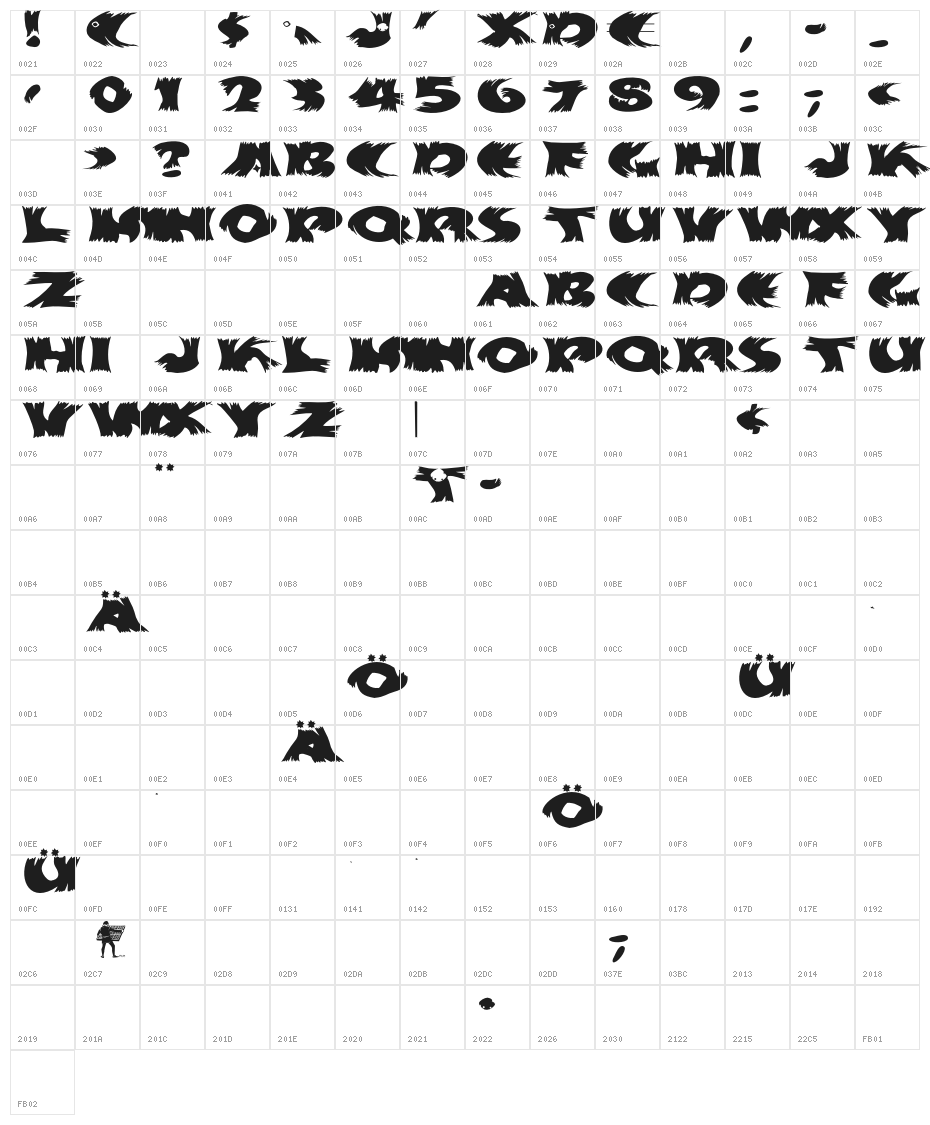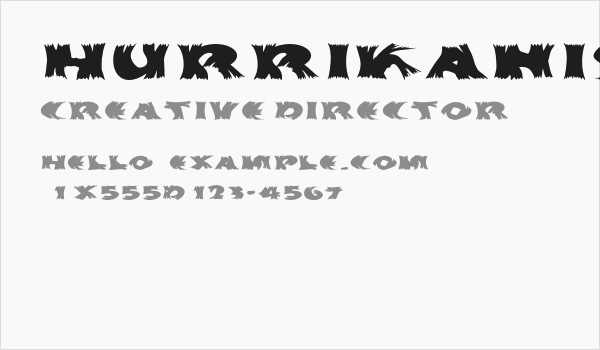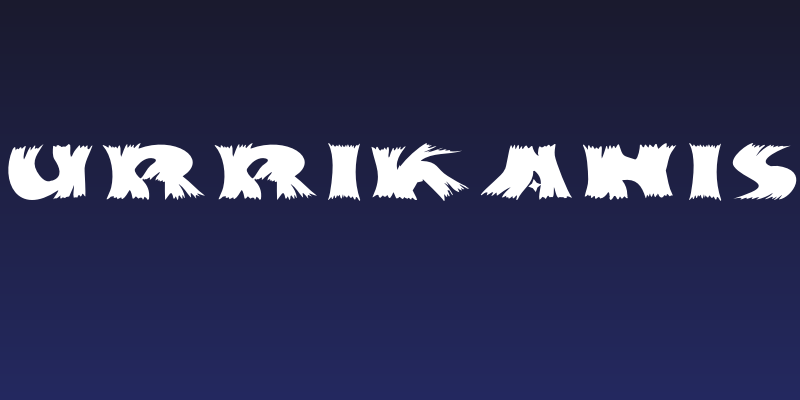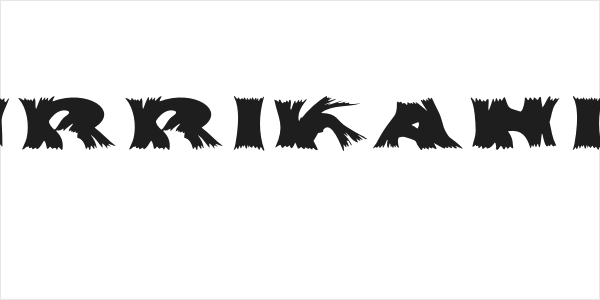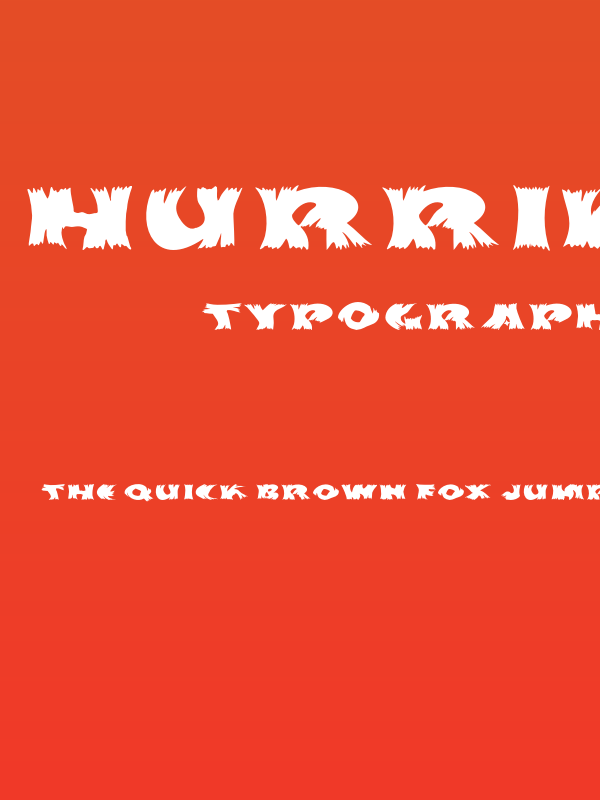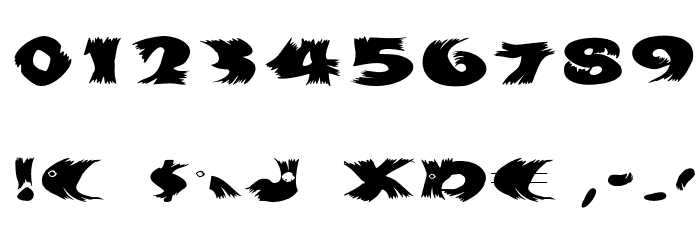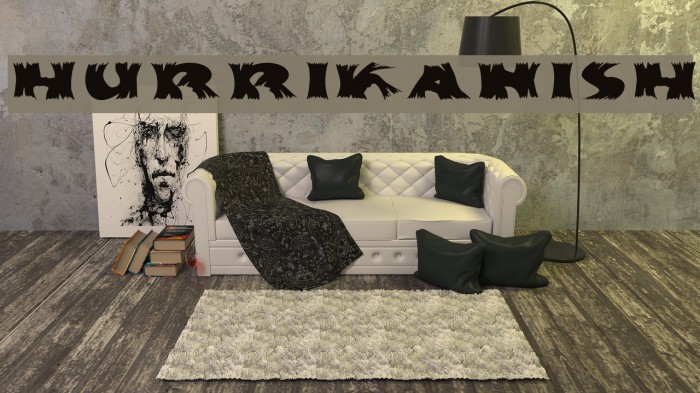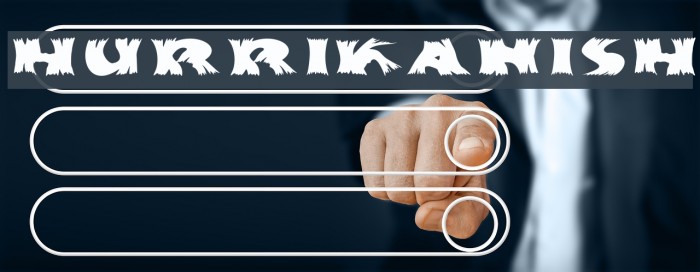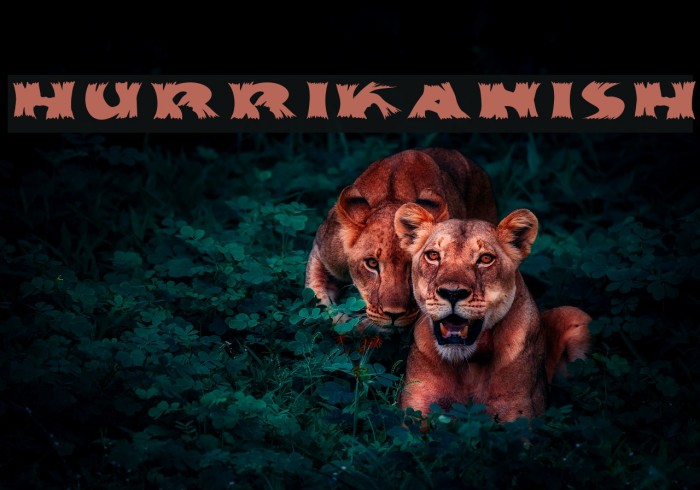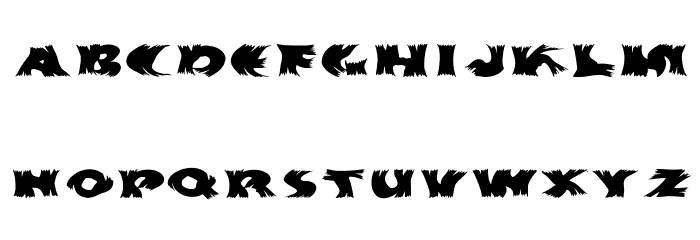
Hurrikanish Font
This font features a bold and dynamic design, characterized by sharp, jagged edges that resemble the chaotic energy of a storm. The letters are heavily stylized, with each character appearing as if it is being swept by a fierce wind, giving a sense of movement and intensity. The uppercase and lowercase letters maintain a consistent style, ensuring readability while still offering a unique visual impact. The numbers and special characters follow the same aesthetic, making the font suitable for creating eye-catching headlines or thematic designs. The overall appearance is both aggressive and artistic, making it ideal for projects that require a strong visual statement.
| Proposed Projects | Ideal for horror-themed posters, edgy branding, or music album covers. |